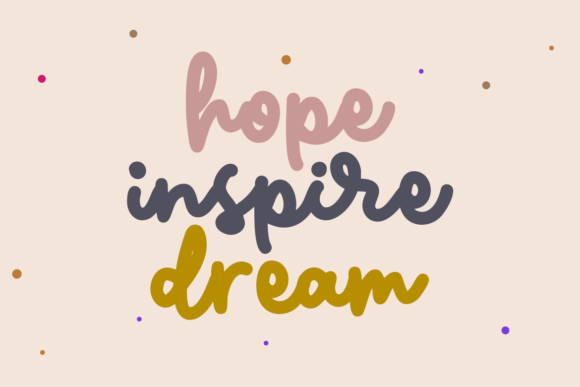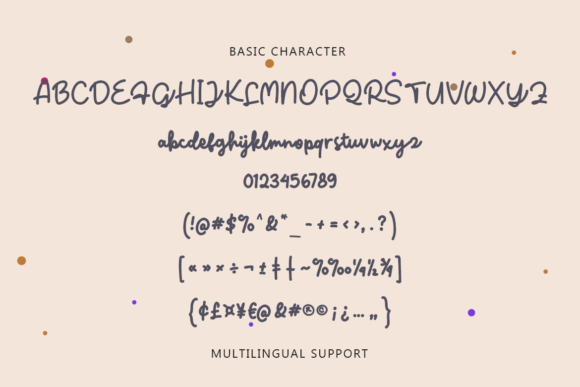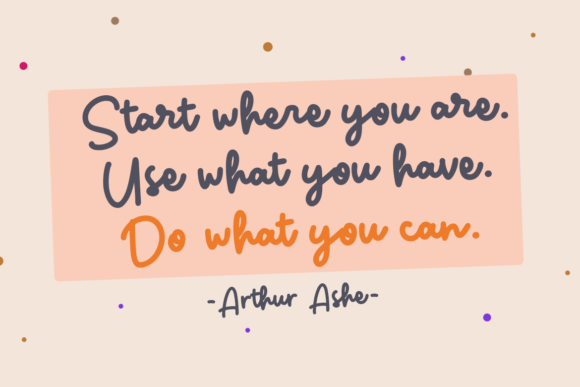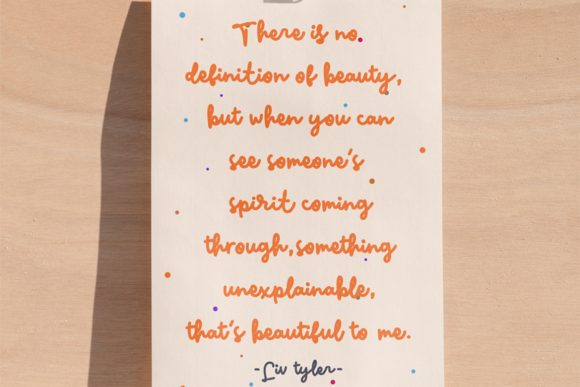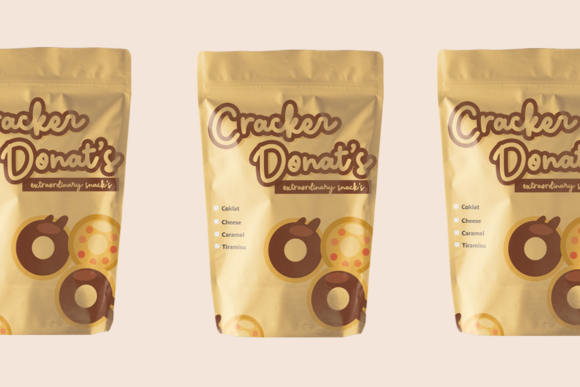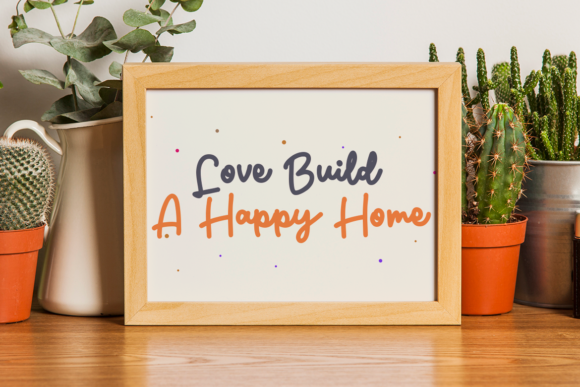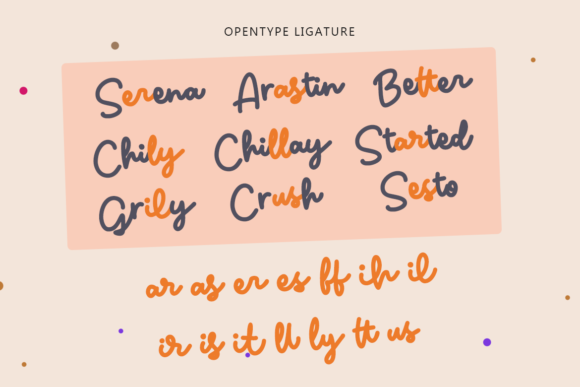
Mikeny Font
About Mikeny Font
Mikeny is a cool and friendly paint brushed script font. Whether you use it for cartoon related designs, children games or just any creation that requires a lovely touch, this font will be an amazing choice.